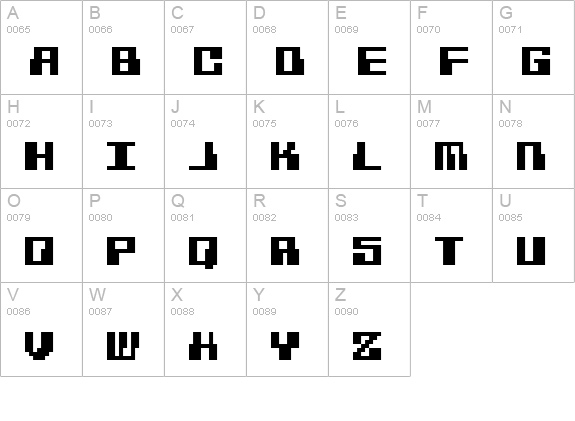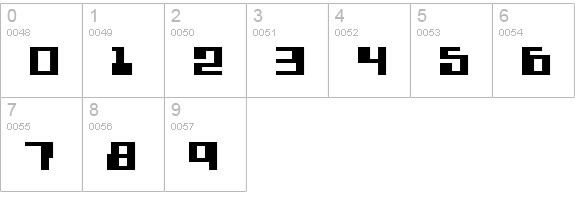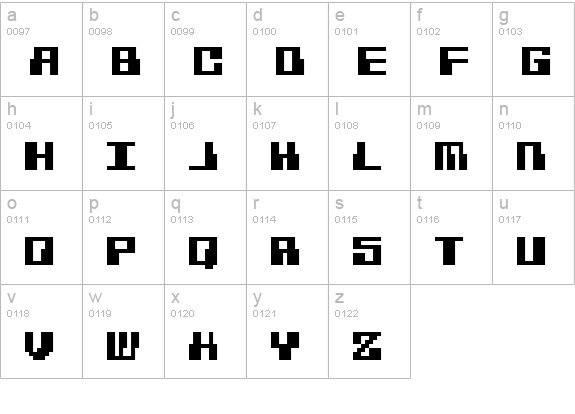
Hacker Font is a sleek and modern typeface designed specifically for all the tech-savvy individuals out there. With its sharp edges and futuristic aesthetic, this font is perfect for adding a touch of sophistication to your designs. Whether you are creating a website, designing a logo, or working on a coding project, Hacker Font will elevate your work to the next level. What makes Hacker Font even more impressive is the fact that it is completely free. That's right, you can download this amazing font without spending a dime. Thanks to FontsMarket.com, you have easy access to this versatile typeface, allowing you to unleash your creativity without any restrictions. So, why settle for ordinary fonts when you can have the extraordinary? Install Hacker Font today and let its bold and dynamic characters bring your designs to life. With its extensive character set and wide range of weights, this font offers endless possibilities for creating visually stunning and impactful designs. Say goodbye to boring typography and hello to Hacker Font. Get ready to impress your audience with this stylish and contemporary typeface that is freely available to download at FontsMarket.com. Don't miss out on this opportunity to take your designs to new heights. Download Hacker Font now and let your creativity soar!